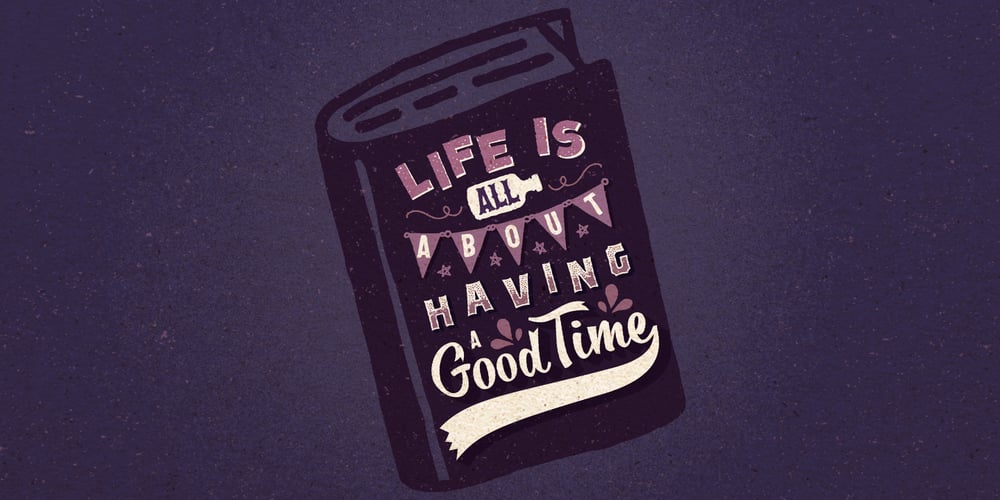
VVDS The Bimbo Font Family was designed by Pavel Korzhenko and published by Vintage Voyage Design. VVDS The Bimbo contains 30 styles and family package options. If you need a simple way to get hand written / drawing style graphics – VVDS The BIMBO Collection is for you. Absolutely hand drawn lettering style collection gives you many styles for your graphic projects. Easy way to give your poster, or gift cards, or gift paper or something else a hand touch for really short time. 25 typefaces, 248 hand drawn graphics and 124 catchwords.